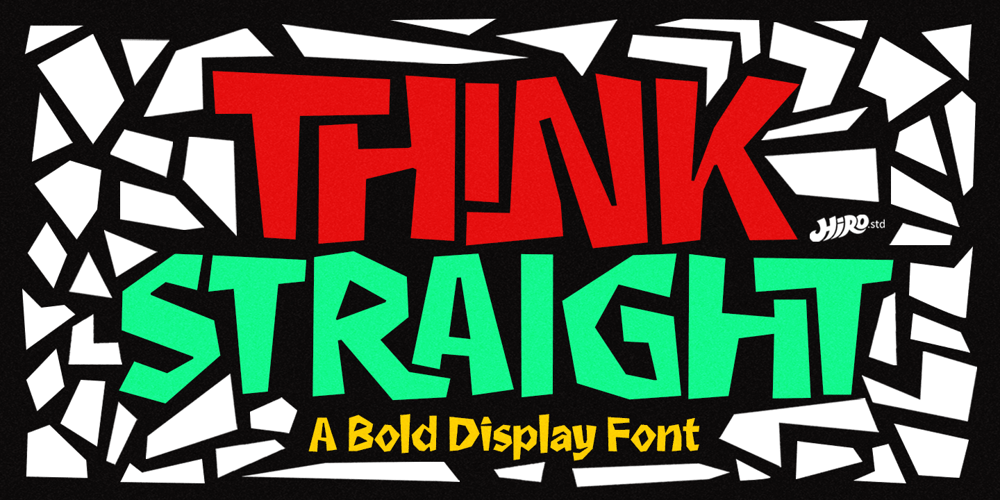
Think Straight Font Family was designed by Chairul Ashar and published by HIRO.std. Think Straight contains 1 styles and family package options. Think Straight a Bold Display Font. This font describes about fun, dynamic, street style, headline, pleasure, humanist, easy going, and easy to use. FEATURES- Uppercase and Lowercase letters – Support Opentype Features- 89 Ligatures- Numbering and Punctuations- PUA Encoded Characters- Multilingual Support- Works on PC or Mac USEThink Straight works great in any branding materials, logotype, poster, print, headline, t-shirt, packaging, magazine etc. Enjoy using!Thanks.